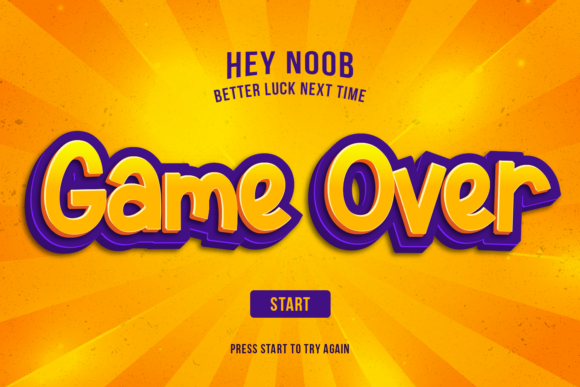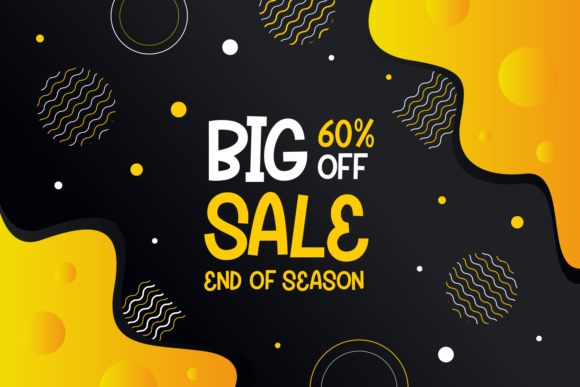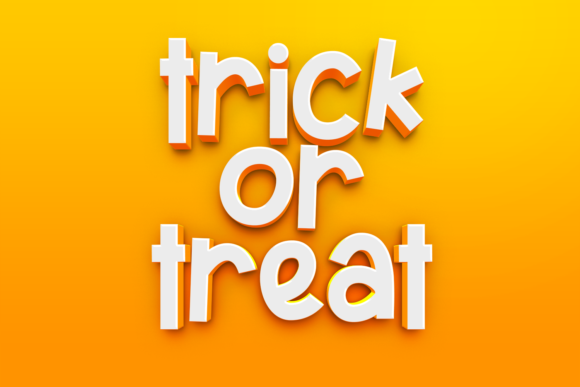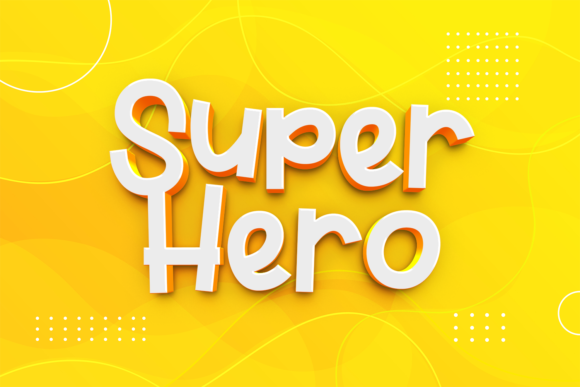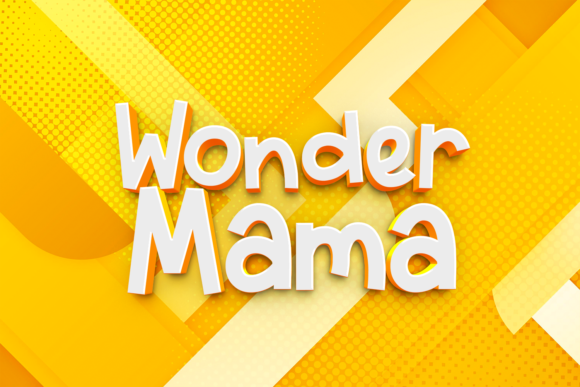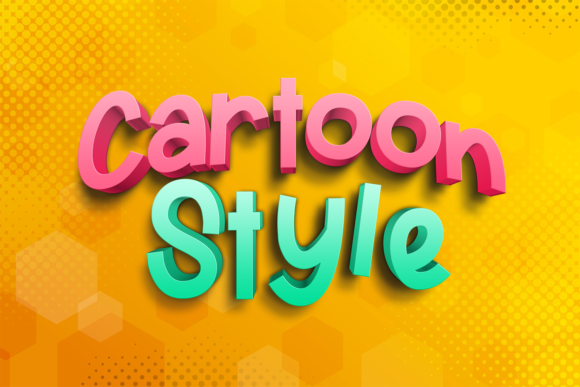
Introducing Crash Landing Font: The Ultimate Display Font for Creative Projects
Are you tired of using the same old fonts for your creative projects? Look no further! Crash Landing Font is a game-changing, chunky lettered, and bold display font that’s about to become your new favorite. Designed to help you take your creative ideas to the next level, this font is perfect for designers, crafters, and anyone looking to add a touch of personality to their work.
What Makes Crash Landing Font So Special?
Crash Landing Font is a masterfully designed display font that’s sure to turn heads. Its chunky, bold letters are perfect for creating eye-catching titles, headings, and captions that demand attention. Whether you’re working on a graphic design project, crafting a logo, or creating social media content, this font is sure to make your work stand out from the crowd.
Key Features of Crash Landing Font
- Chunky and Bold: Crash Landing Font features thick, bold letters that are perfect for creating eye-catching displays.
- Highly Versatile: This font is suitable for a wide range of creative projects, from graphic design and branding to crafting and DIY projects.
- Easy to Read: Despite its bold and chunky design, Crash Landing Font is surprisingly easy to read, making it perfect for use in titles, headings, and captions.
- Unique Personality: This font has a unique personality that’s sure to add a touch of character to your work.
How to Use Crash Landing Font in Your Creative Projects
Crash Landing Font is incredibly versatile and can be used in a wide range of creative projects. Here are a few ideas to get you started:
- Graphic Design: Use Crash Landing Font to create eye-catching titles, headings, and captions for your graphic design projects.
- Branding: This font is perfect for creating bold and memorable logos that will help your brand stand out.
- Crafting and DIY: Add a touch of personality to your crafting and DIY projects with Crash Landing Font. Use it to create titles, labels, and decorations for your projects.
- Social Media: Use Crash Landing Font to create eye-catching social media graphics, titles, and captions that will help your content stand out.
Tips for Getting the Most Out of Crash Landing Font
Here are a few tips for getting the most out of Crash Landing Font:
- Experiment with Different Colors: Crash Landing Font looks great in a wide range of colors. Experiment with different colors to find the perfect combination for your project.
- Play with Font Sizes: This font looks great in a variety of sizes. Experiment with different font sizes to create visual interest and hierarchy in your design.
- Combine with Other Fonts: Crash Landing Font pairs well with a wide range of other fonts. Experiment with combining it with other fonts to create a unique and interesting look.
Crash Landing Font is a game-changing display font that’s sure to become a favorite among designers and crafters. Its chunky, bold letters and unique personality make it perfect for adding a touch of personality to your creative projects. Whether you’re working on a graphic design project, crafting a logo, or creating social media content, this font is sure to help you take your creative ideas to the next level.